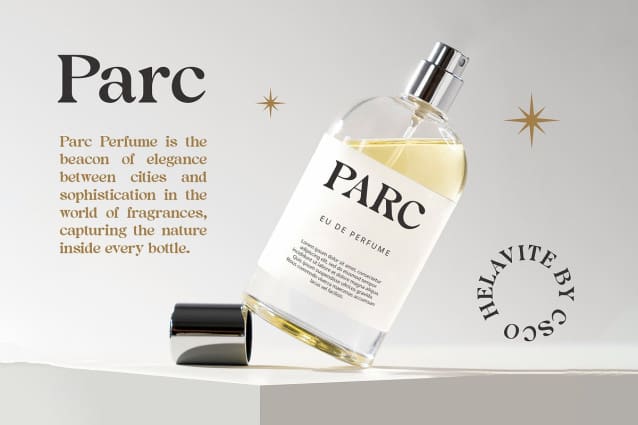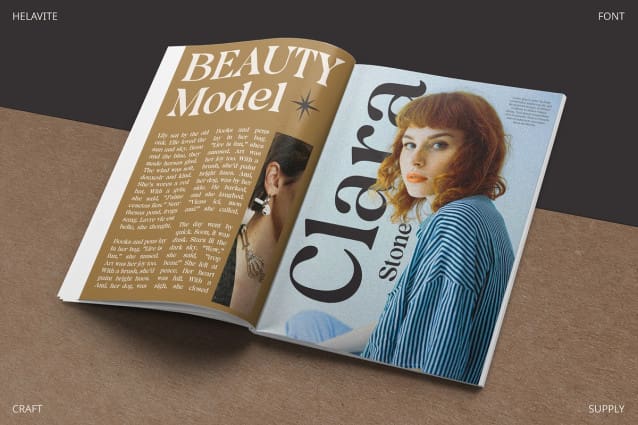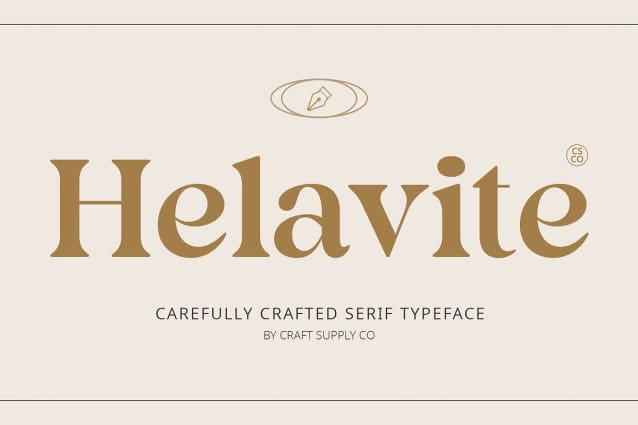
Helavite Font
Helavite Font – Modern Serif is a sleek and elegant font designed for the modern world. Its serif design adds a touch of sophistication, making it suitable for a wide range of professional applications.
With its versatile design, Helavite Font is perfect for a variety of uses, including headlines, body text, and branding. Its modern style adds a contemporary flair to any project, while its serif details ensure a classic and timeless look.
Helavite Font prioritizes readability, ensuring that your message is clear and easy to understand. Whether used in print or digital media, this font maintains legibility even at small sizes.
Whether you’re designing a business card, a website, or a presentation, Helavite Font is the perfect choice for projects that require a professional and modern aesthetic. Its timeless design ensures that your work will always look stylish and up-to-date.